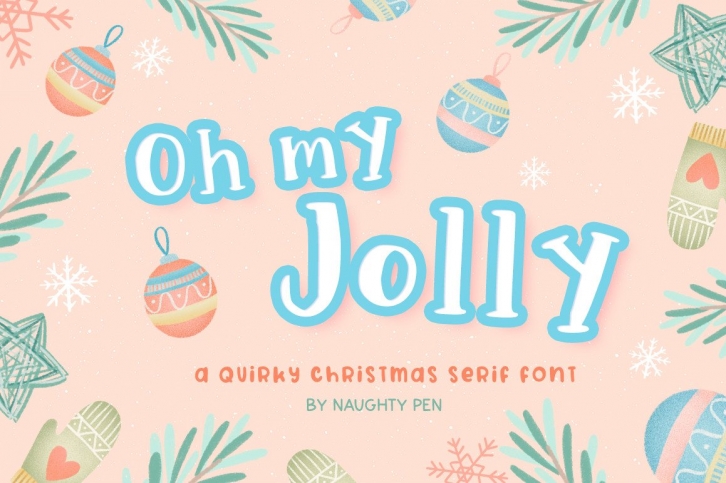
Oh My Jolly is a cool, quirky and casual serif font. Whether you are using it for cartoon-related designs, children games, quotes, titles, brand names, book covers, posters, or just any creation that requires a touch of joy, this font is a great choice.